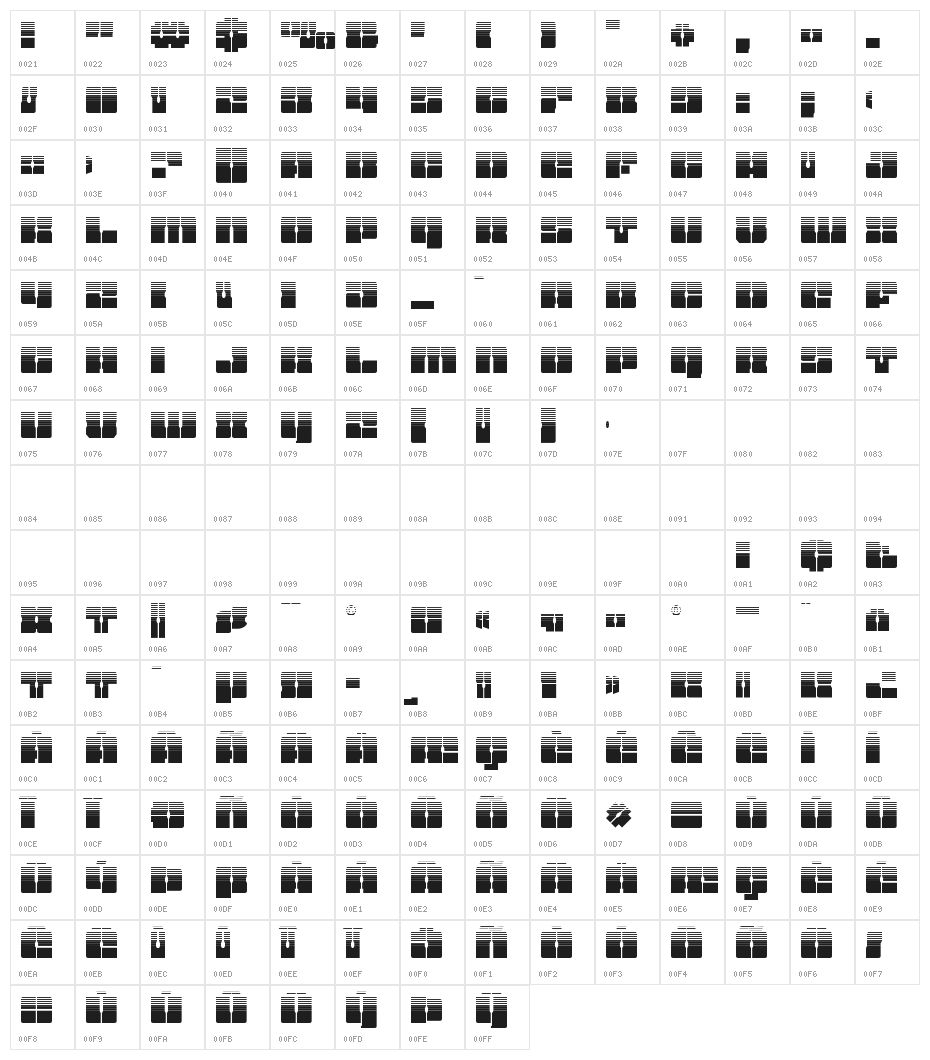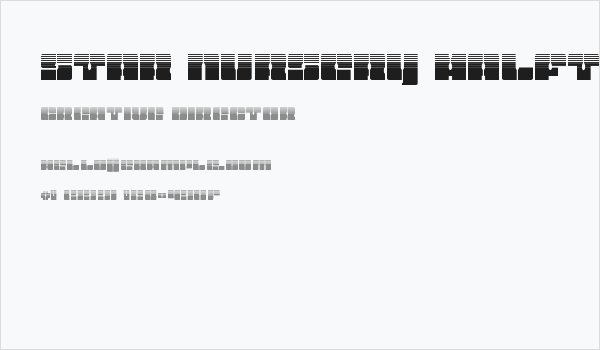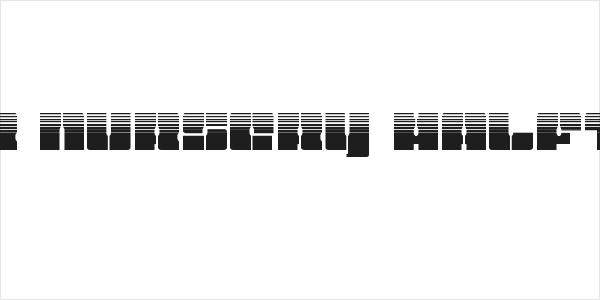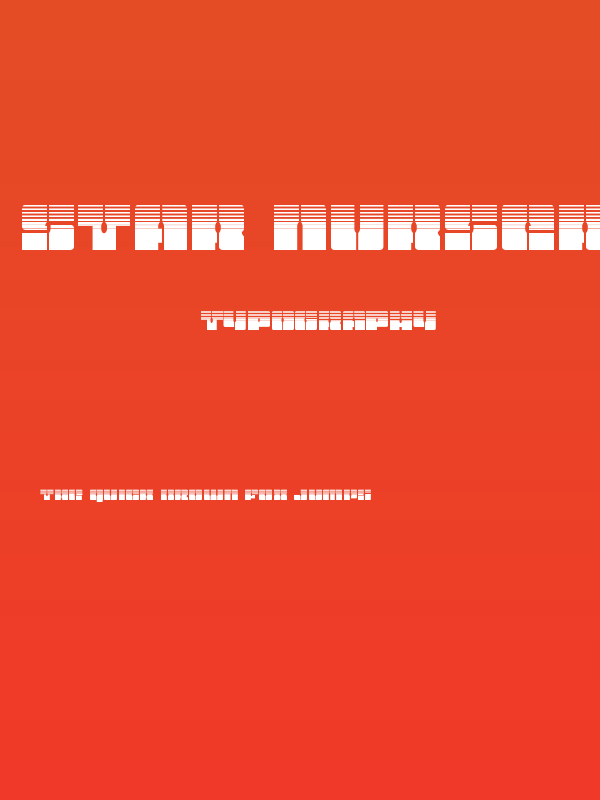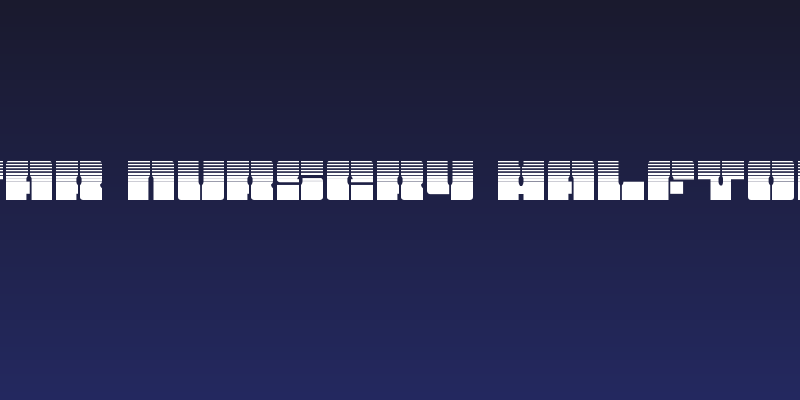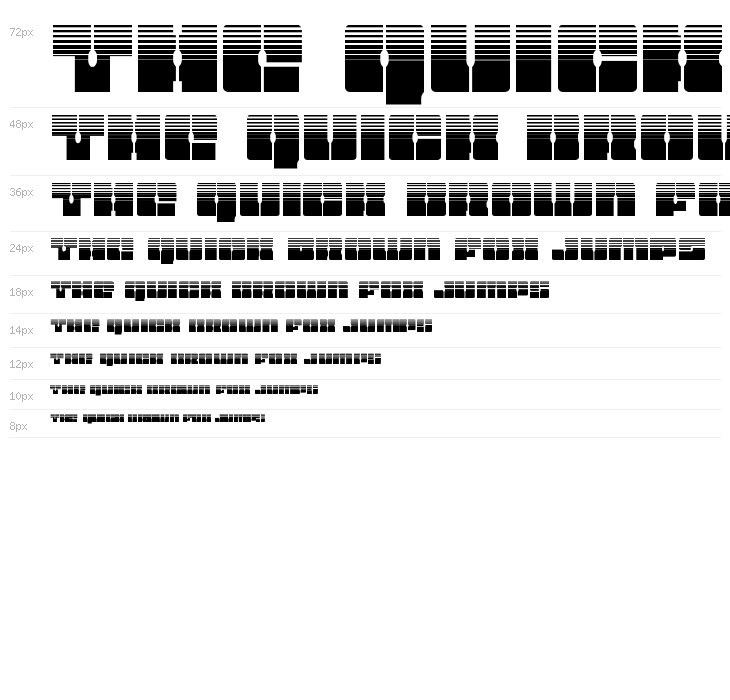
Star Nursery Halftone Font
Star Nursery Halftone Description
This font features a unique halftone pattern with horizontal lines creating a textured effect across each character. The design is bold and eye-catching, with a modern and artistic flair. The characters are blocky and geometric, providing a strong visual impact. The halftone effect gives it a sense of depth and dimension, making it suitable for creative and innovative design projects. The font's distinct style makes it ideal for use in headlines, posters, and other display purposes where a striking visual presence is desired.
| Use Case | Headlines, Posters, Logos |
| Proposed Projects | Ideal for posters, album covers, branding, and any project requiring a bold, artistic touch. |